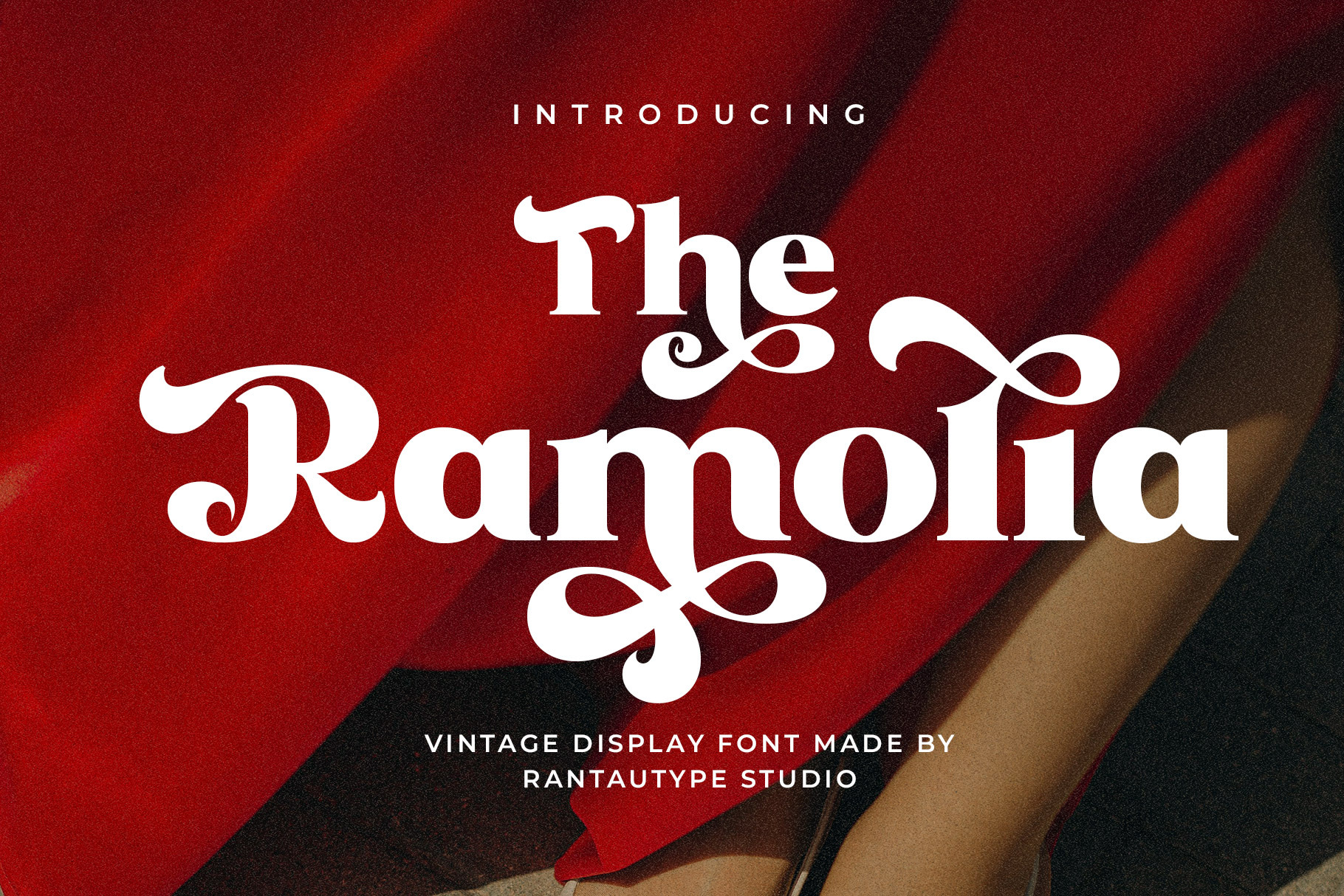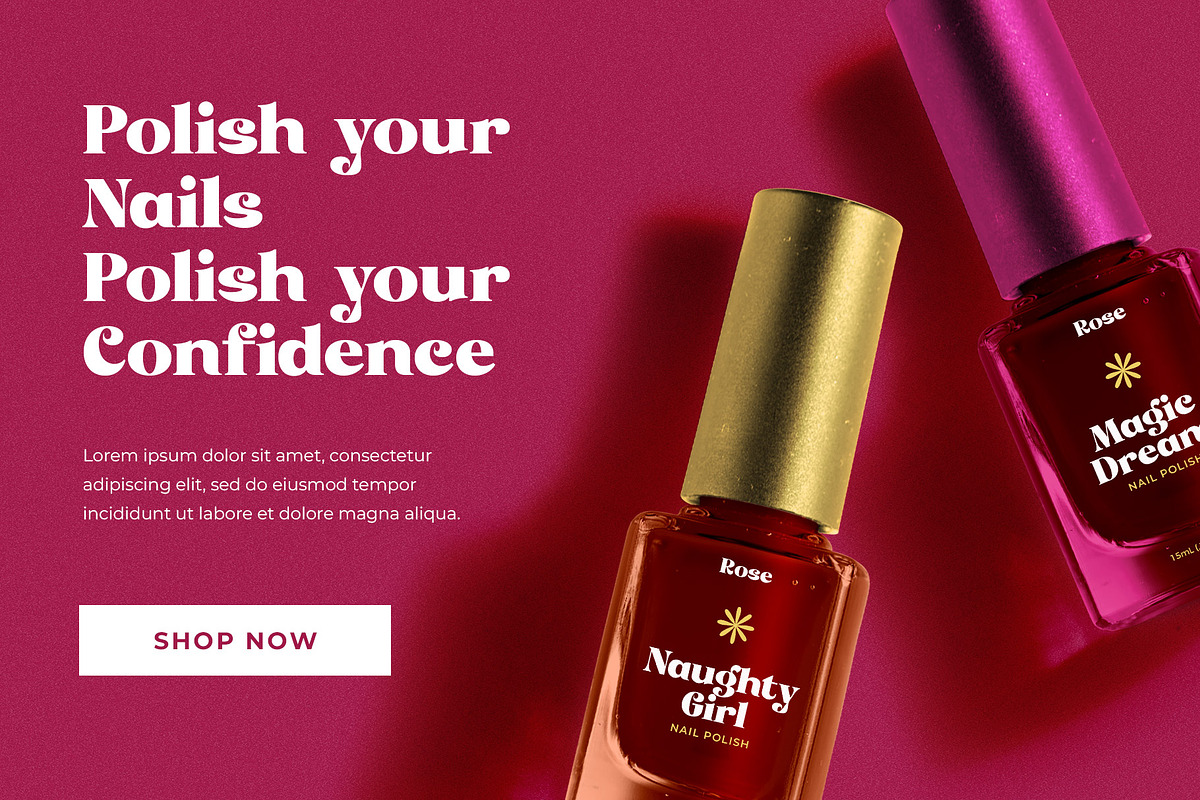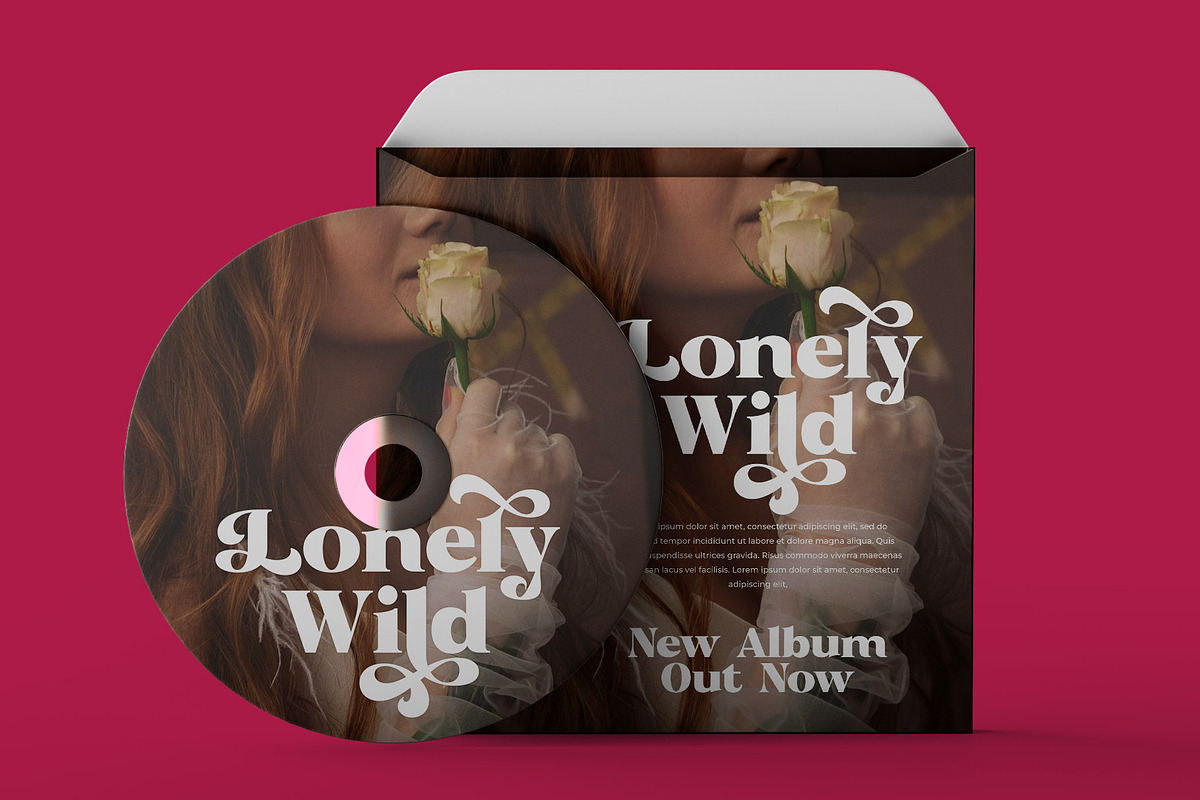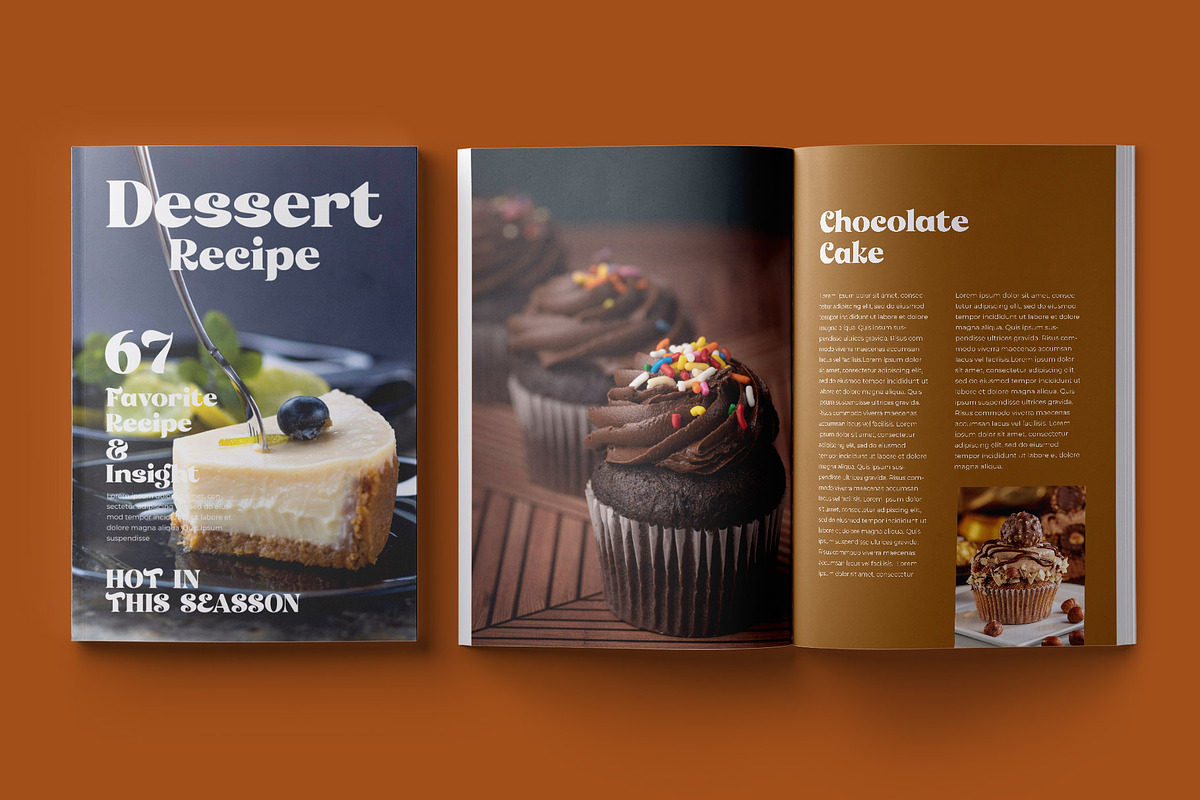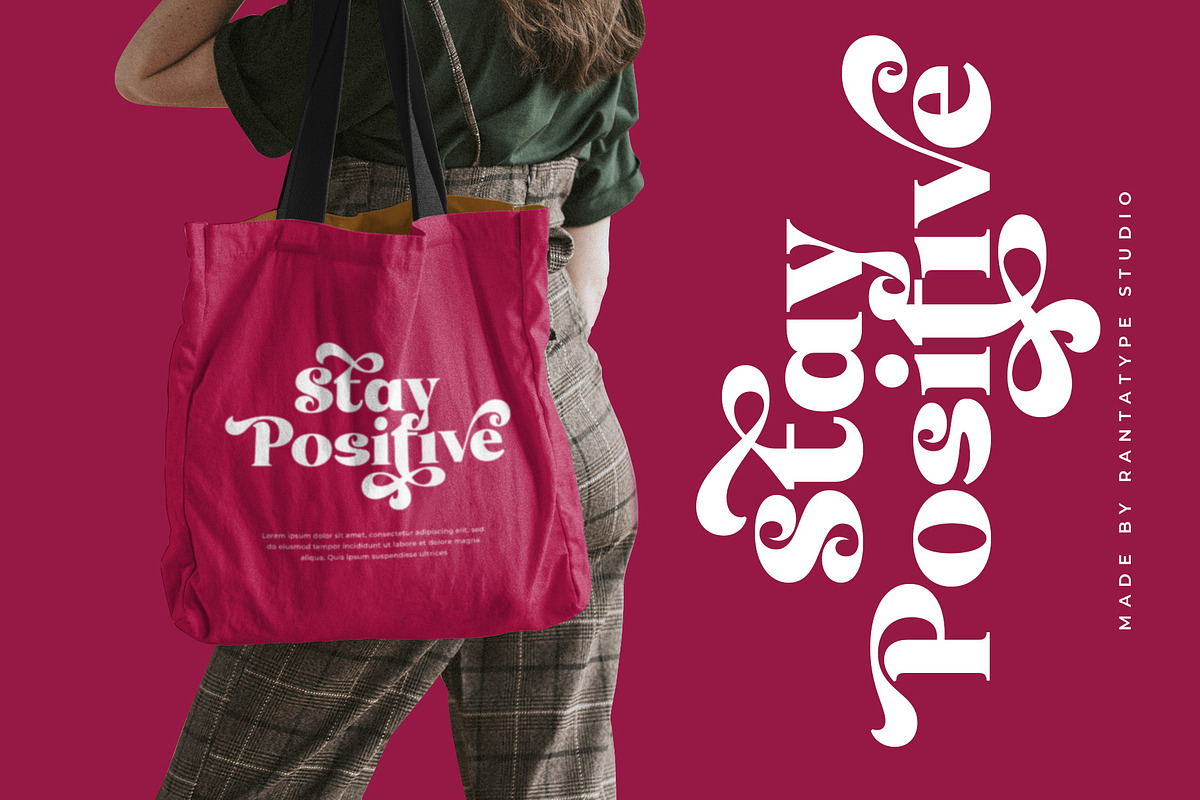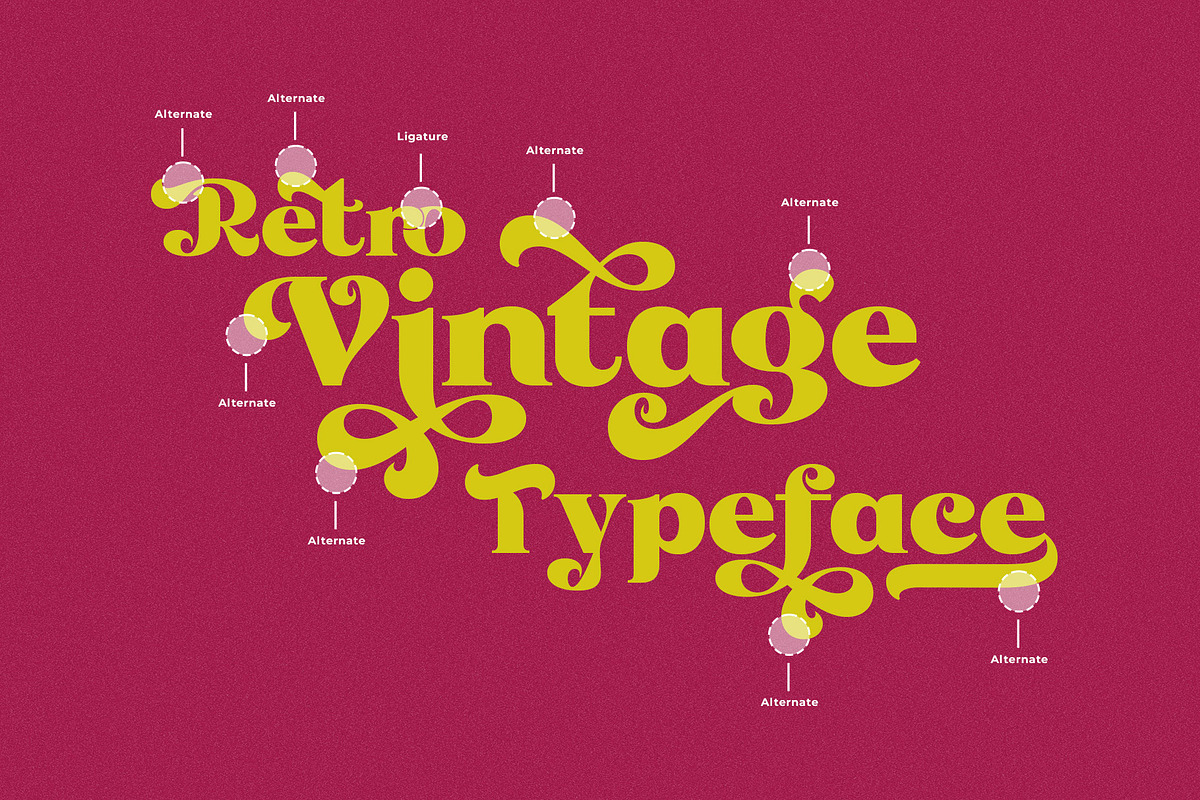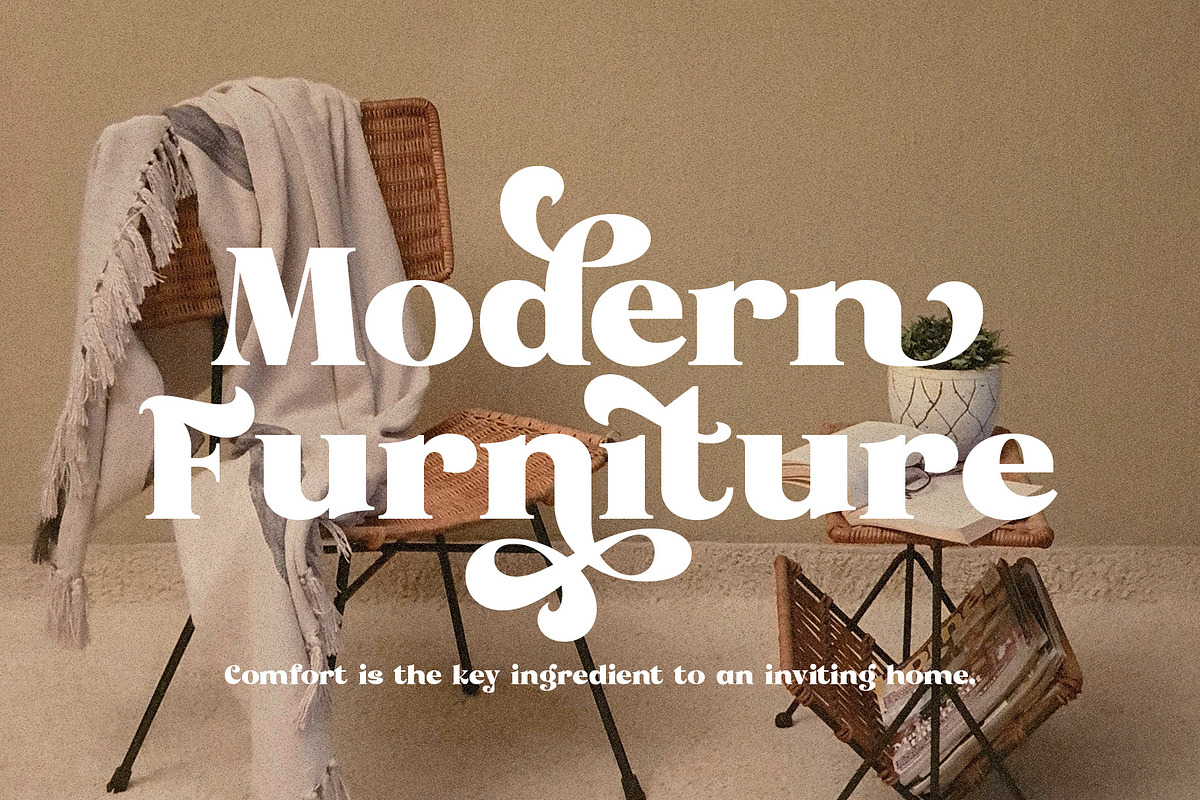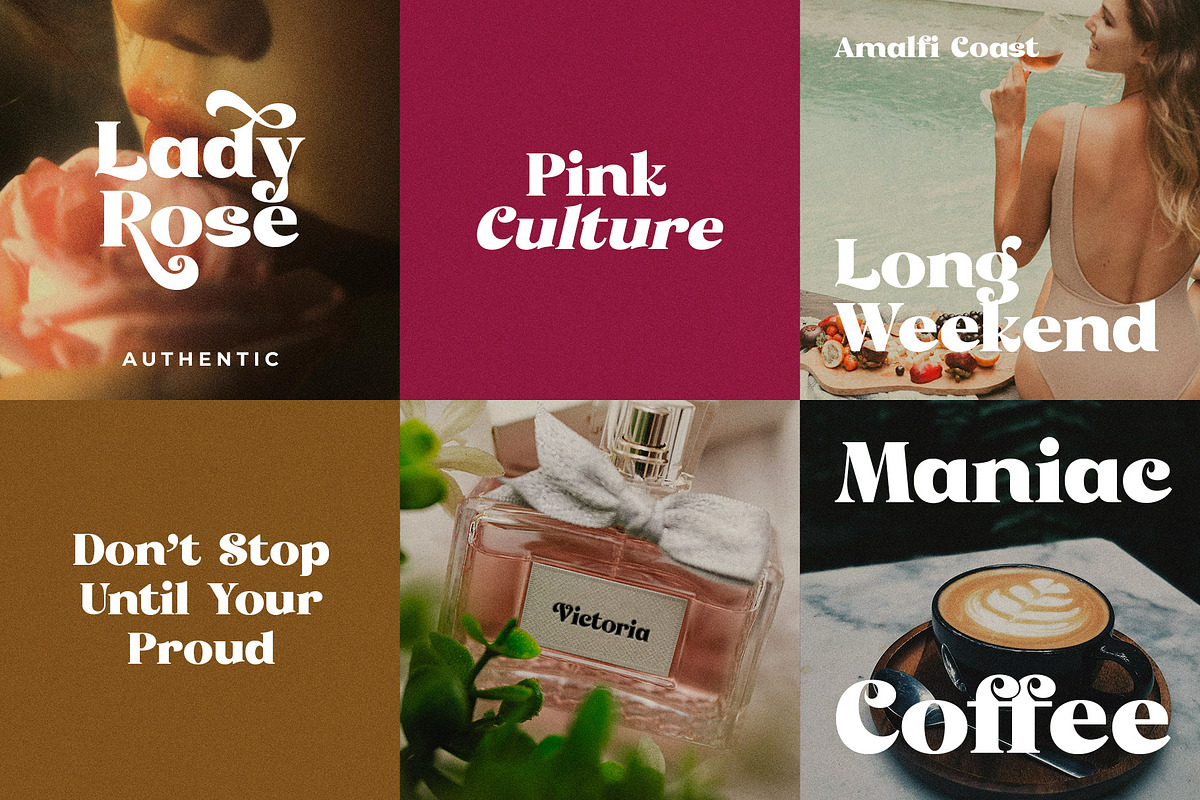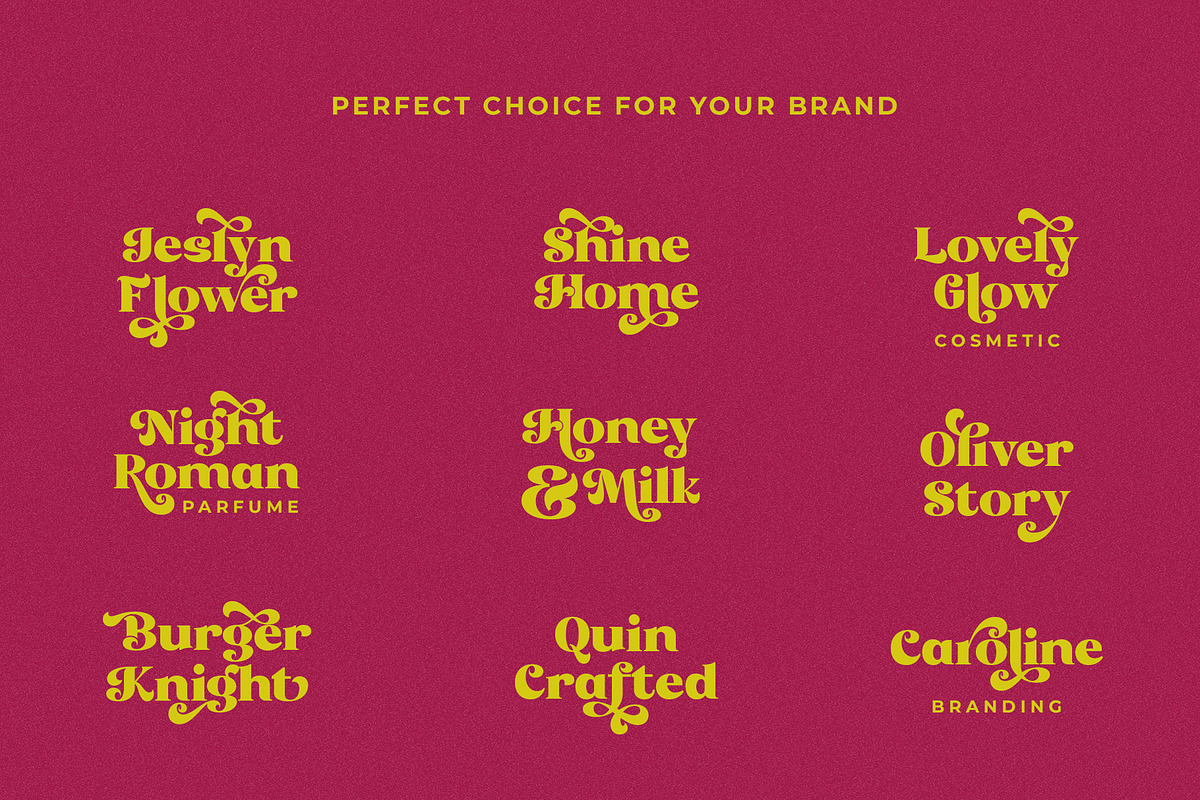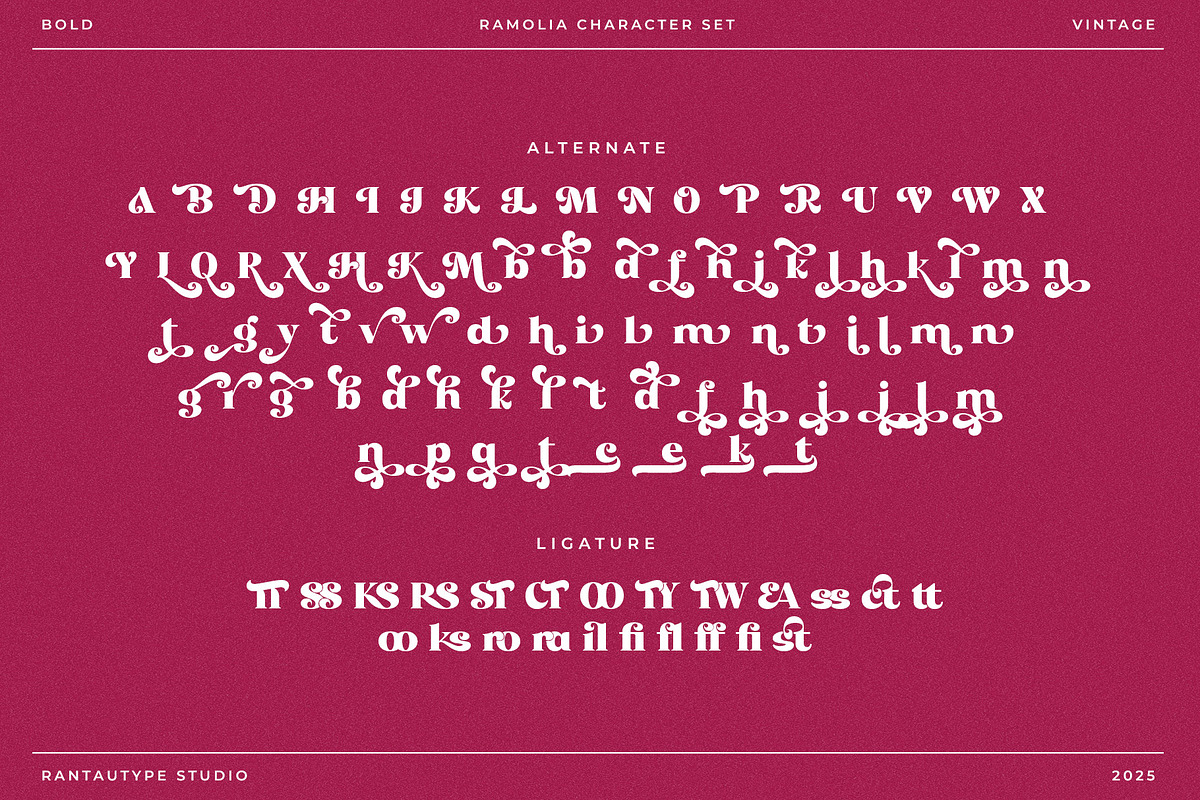
Ramolia Vintage Display Font
Ramolia is decorative font with beautiful character. Ramolia come with bold and aesthetic letterform to create your design project awesome. Ramolia is a perfectly choice for any creative endeavor, chic, lifestyle design such as logotype, advertisements, watermark on photography, stationery, branding project, display and magazine, invitation, corporate brand, product design, label, business project and many other project with luxury touch.
- Standart Glyphs
- Alternate and ligature